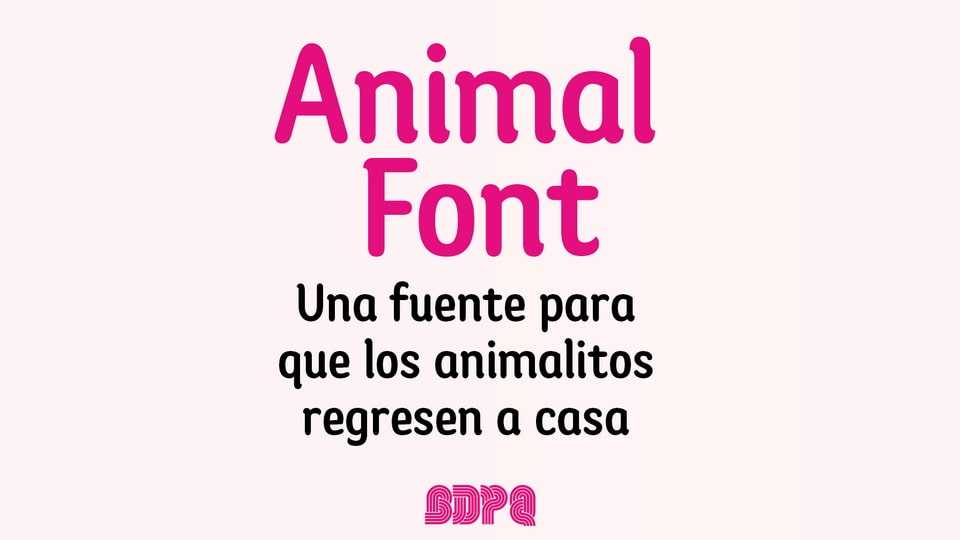
Download Animal font, a font designed to help the community that is in search of lost animals, animals to adopt, donor animals, even those who are looking for donations for shelters.